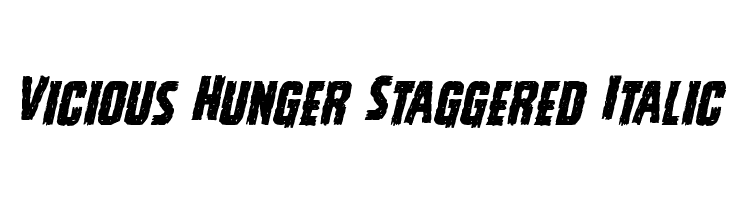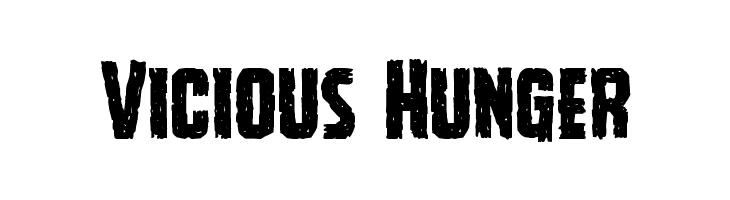
Vicious Hunger Font
Font by Daniel Zadorozny - www.iconian.com
A bold, distressed font with a rugged, graffiti-like appearance.
Vicious Hunger Expanded Font
Font by Daniel Zadorozny - www.iconian.com
A bold, distressed font with a rugged, gritty appearance.
Vicious Hunger Staggered Font
Font by Daniel Zadorozny - www.iconian.com
A bold, distressed font with a rugged, hand-drawn appearance.
Vicious Hunger Condensed Font
Font by Daniel Zadorozny - www.iconian.com
A bold, distressed, and condensed font with a rugged, textured appearance.
Vicious Hunger Rotated Font
Font by Daniel Zadorozny - www.iconian.com
A bold, distressed font with a gritty, urban style.
Vicious Hunger Italic Font
Font by Daniel Zadorozny - www.iconian.com
A bold, italicized font with a distressed, grungy texture for an edgy look.
Vicious Hunger Staggered Italic Font
Font by Daniel Zadorozny - www.iconian.com
A bold, distressed, and italicized font with a rugged appearance.
Vicious Hunger Rotalic Font
Font by Daniel Zadorozny - www.iconian.com
A bold, distressed, and italicized font with a rugged, edgy style.
Vicious Hunger Condensed Italic Font
Font by Daniel Zadorozny - www.iconian.com
A bold, jagged, and condensed italic font with a gritty, distressed texture.
Vicious Hunger 3D Italic Font
Font by Daniel Zadorozny - www.iconian.com
A bold, textured 3D italic font with a rugged, distressed style.
Vicious Hunger 3D Font
Font by Daniel Zadorozny - www.iconian.com
A bold, distressed font with a rugged, textured appearance.
Vicious Hunger Expanded Italic Font
Font by Daniel Zadorozny - www.iconian.com
A bold, distressed, and italic typeface with a grunge aesthetic.
Vicious Hunger Leftalic Font
Font by Daniel Zadorozny - www.iconian.com
A bold, distressed font with a rugged, textured appearance and a dynamic slant.